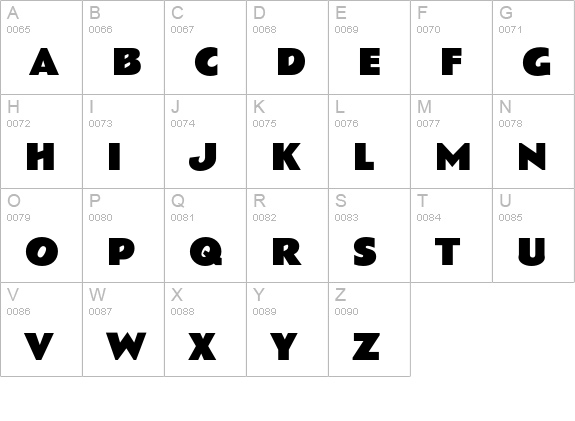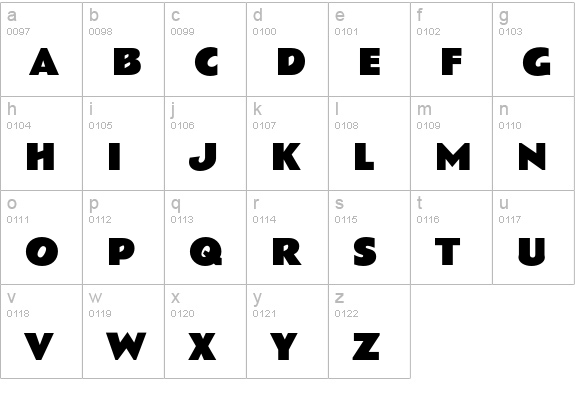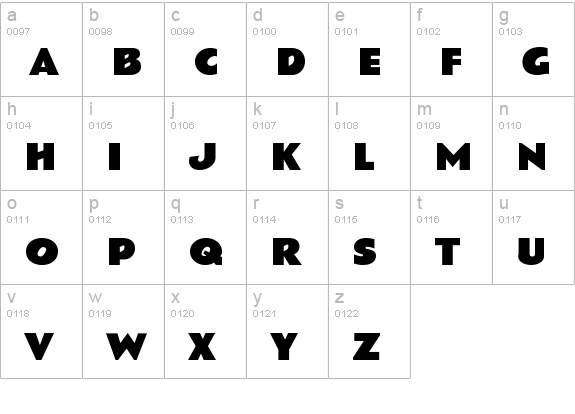
Basuto RR Font Details
Basuto RR is a striking and versatile font that exudes elegance and sophistication. Its clean lines and modern design make it perfect for a wide range of design projects, from branding to editorial layouts. The Basuto RR font features a unique blend of classic and contemporary elements, giving it a timeless appeal that is sure to captivate your audience. What sets Basuto RR apart is not just its stunning aesthetic, but also the fact that it is available for free download at FontsMarket.com. This means that you can easily access this high-quality font without any cost, making it a valuable addition to your font library. Whether you're a professional designer or a hobbyist looking to elevate your projects, Basuto RR is a must-have font that will elevate your designs to the next level.